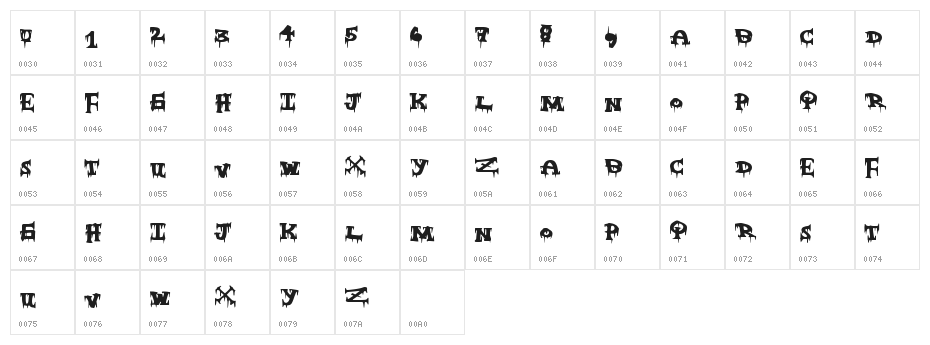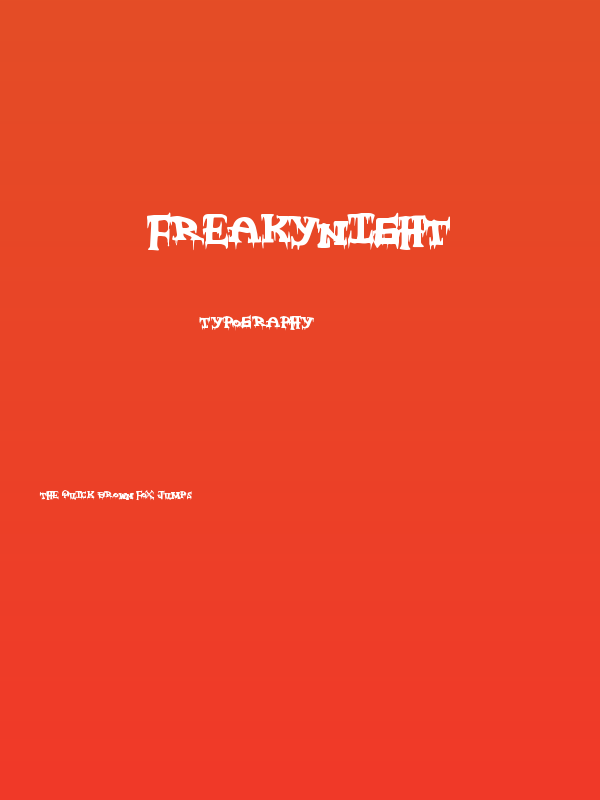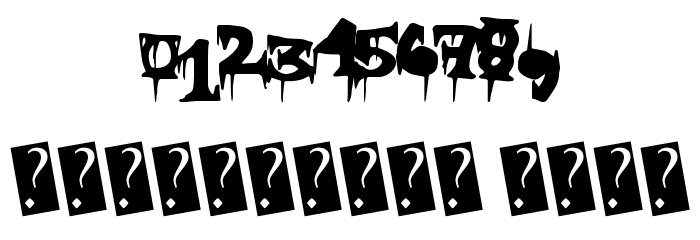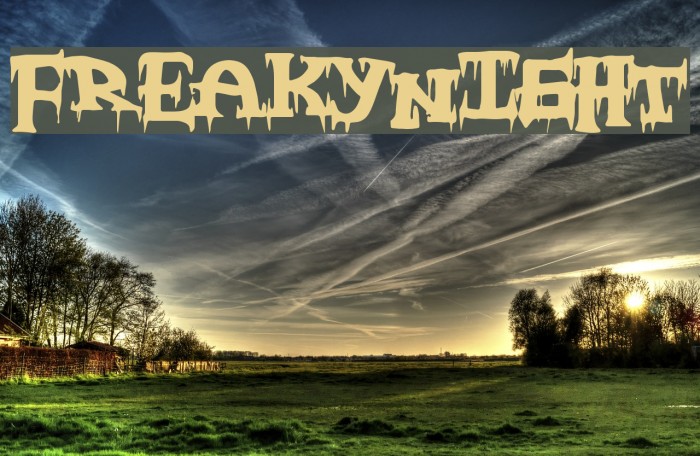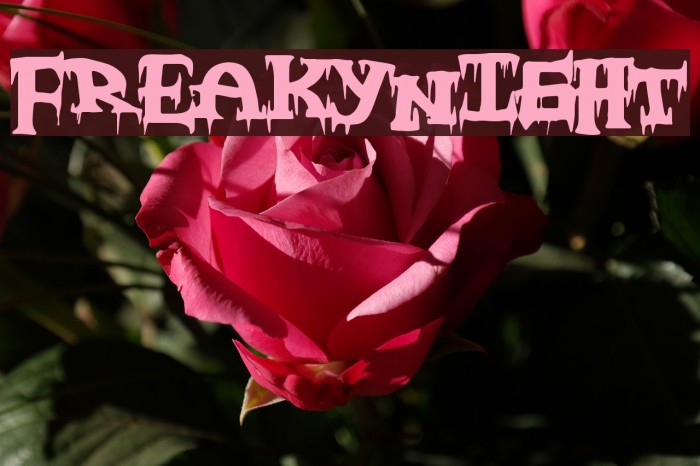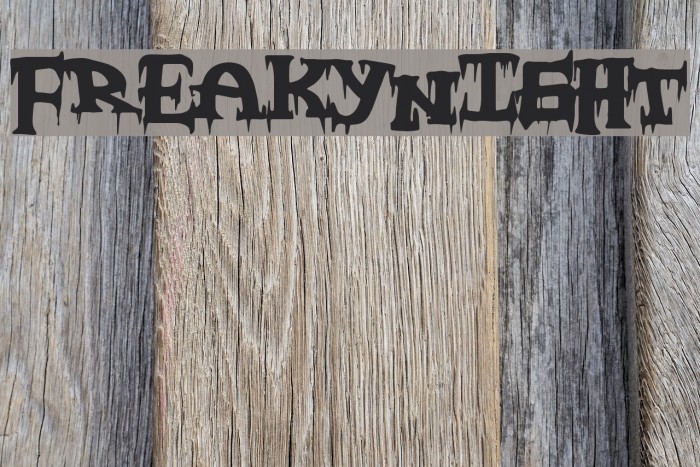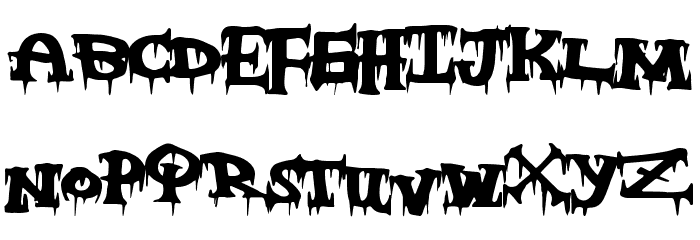
FreakyNight Font
FreakyNight Description
This font features a bold and dramatic style with a dripping effect that gives it a spooky and eerie appearance. The uppercase and lowercase letters are designed with sharp edges and uneven lines, creating a sense of movement and fluidity. The numbers and special characters maintain this dripping motif, enhancing the overall theme. The font's unique style makes it ideal for Halloween-themed projects or any design that requires a touch of horror or mystery. Its boldness ensures high visibility, making it suitable for headlines or titles.